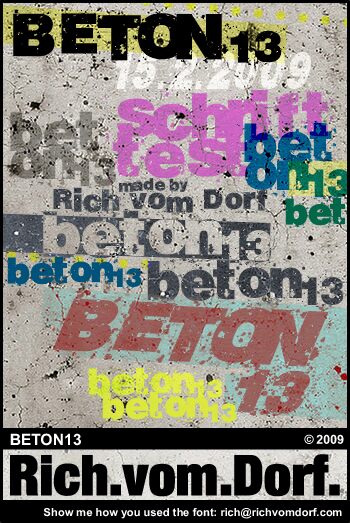
RvD BETON13 by Rich vom Dorf is a free eroded display sans with broad, heavy capitals and a blunt industrial build. Chips, scratches, and scattered pits suggest worn paint on concrete.
Cracked walls and rough screen-printed artwork share its damaged texture, a useful link for posters and music packaging. It also suits streetwear branding and event graphics with underground or construction-site themes. There, the missing flecks let the lettering become part of the weathered imagery rather than a clean label.